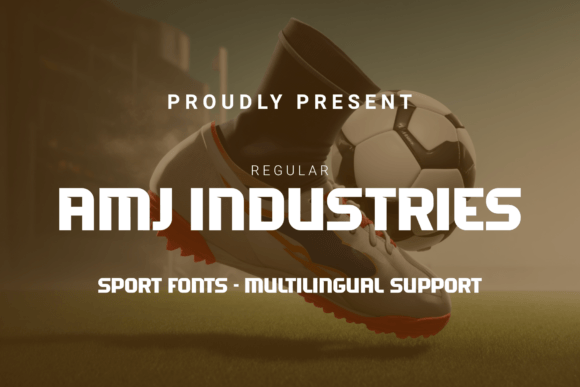
The Ultimate Font for Sports Designs: AMJ Industries
I’ll never forget the time I was working on a project for a local sports team, and I was struggling to find the perfect font to capture their energetic and competitive spirit. The client was specific: they wanted a font that would make their team stand out, something bold, dynamic, and sporty. After hours of searching, I stumbled upon AMJ Industries, and it was love at first sight! 💡
AMJ Industries is a font specifically designed to create a dynamic and energetic impression, making it a perfect choice for sports-related designs. This font features strong characteristics, sharp lines, and a modern design, making it ideal for various sports-related projects, such as logos, posters, jerseys, and promotional materials.
What I Love About AMJ Industries
- ✨ Aggressive and Masculine Style: AMJ Industries has an aggressive and masculine typographic style, with large standout letters and bold lines that signify strength and ruggedness.
- ✅ Perfect for Sports Teams and Events: Its design combines futuristic elements with sports-inspired motifs, creating a font that is well-suited for sports teams, sports equipment brands, and major sports events.
- 💪 Flexibility and Creativity: With AMJ Industries, you can convey a powerful and captivating message in your designs, emphasizing the spirit of competition and athleticism.
Honest Review: The Not-Perfect-but-Almost Section
While AMJ Industries is an amazing font, there are a few quirks to be aware of:
- ⚠️ Limited Use in Formal Contexts: Due to its bold and aggressive style, AMJ Industries may not be the best choice for formal or elegant designs.
- 🤔 Requires Attention to Legibility: When using AMJ Industries in smaller sizes or at a distance, legibility may be a concern, especially for longer texts.
AMJ Industries was designed with the sports industry in mind. The creator, a passionate designer and sports enthusiast, aimed to craft a font that would capture the energy and competitiveness of sports teams and events. Inspired by the world of athletics, the designer combined bold lines, sharp edges, and a modern aesthetic to create a font that’s both dynamic and captivating.
| What type of designs is AMJ Industries best suited for? | AMJ Industries is perfect for sports-related designs, such as logos, posters, jerseys, and promotional materials. |
| Is AMJ Industries available in different weights or styles? | AMJ Industries comes in a single bold weight, but its design is versatile enough to be used in various contexts. |